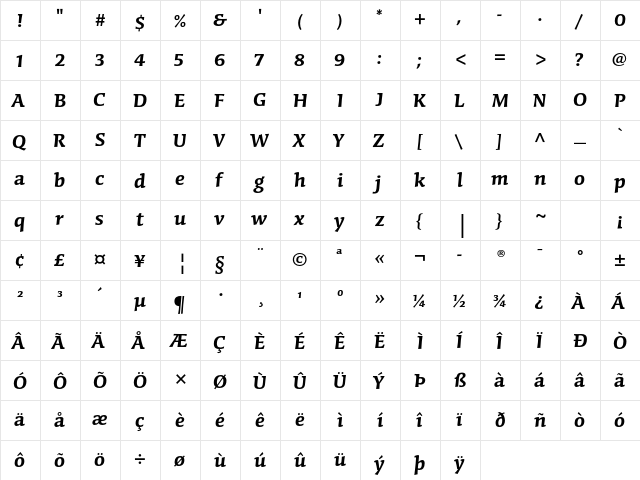
Conga Brava Std Semibold Font Preview
Conga Brava Std Semibold
| Designer | Michael Harvey |
Design Context for Conga Brava Std Typeface
Conga Brava Std takes a measured approach to typography — its balanced proportions and neutral character make it a reliable workhorse for both digital and print work. Its bold stroke weight gives it real presence on the page.